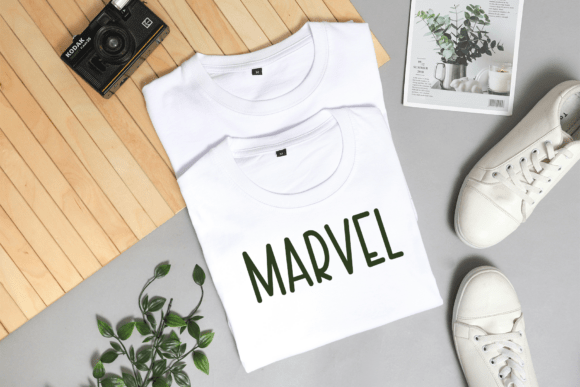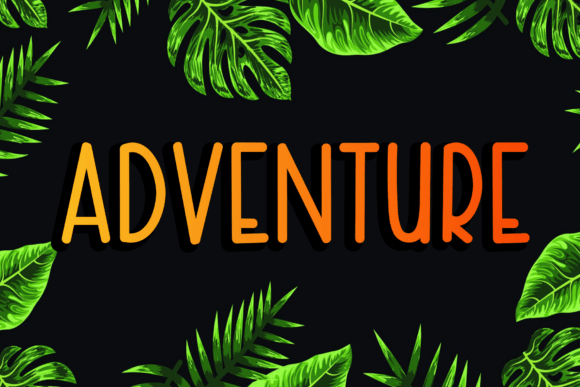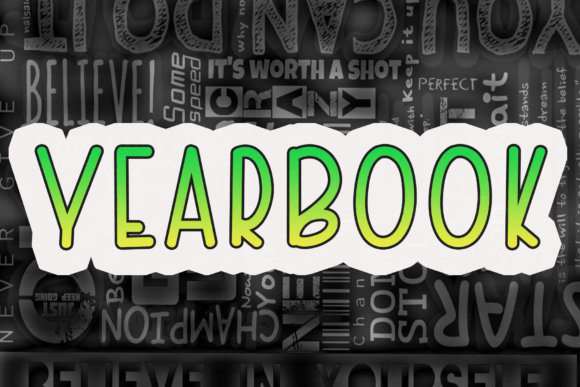
Cinematic Font
Cinematic is a sweet and friendly handwritten font. Fresh and casual, this font is ideal for writing wedding invitations, cards, or any other design that might need a lovely touch.